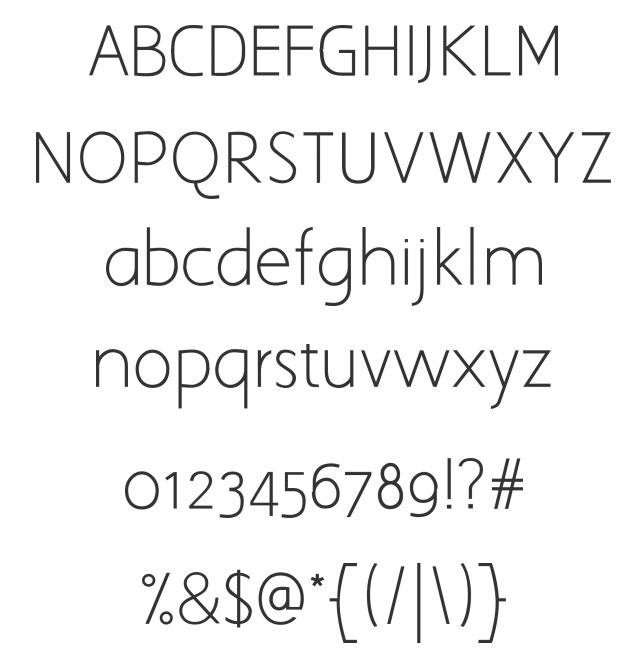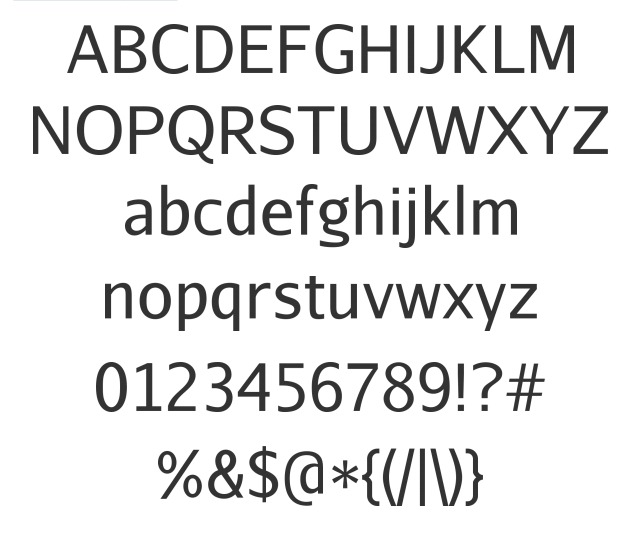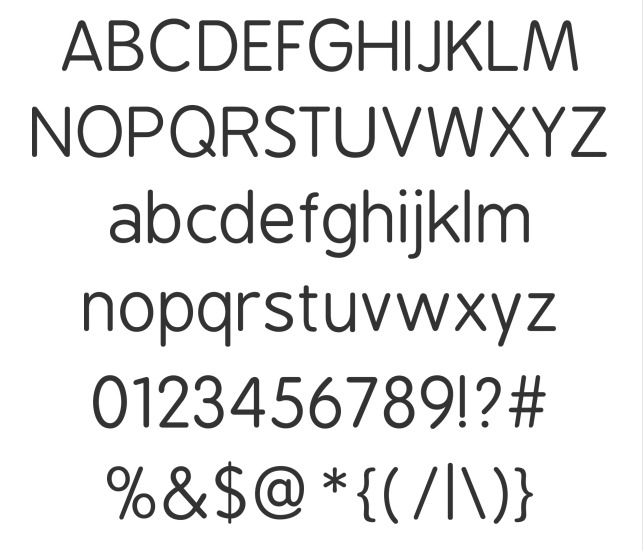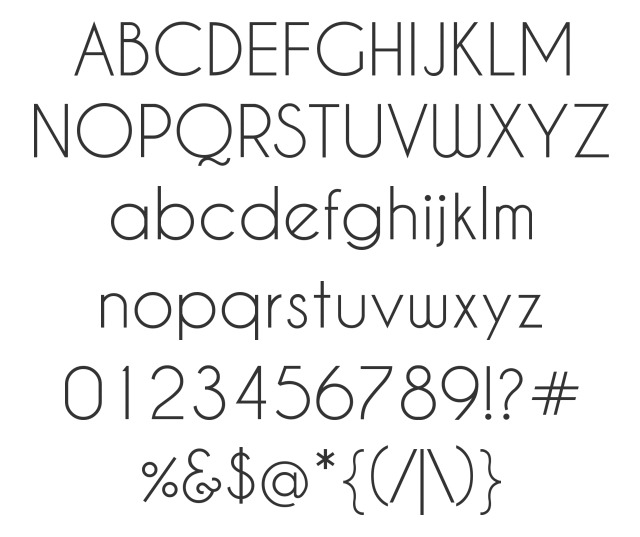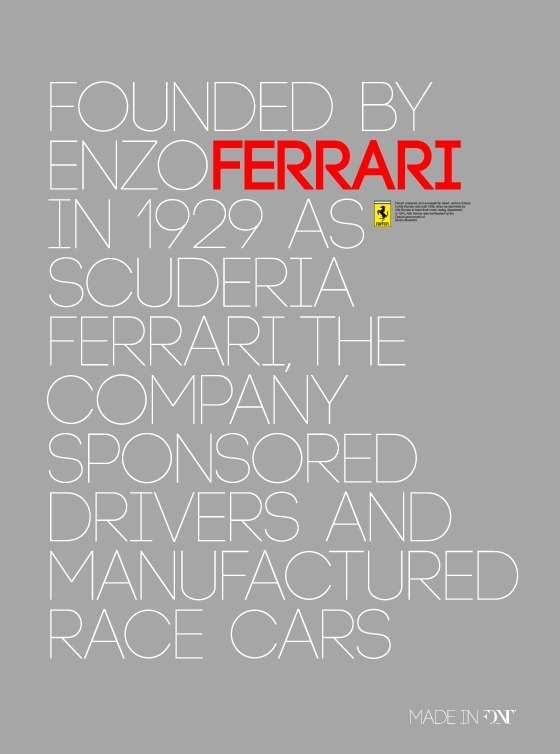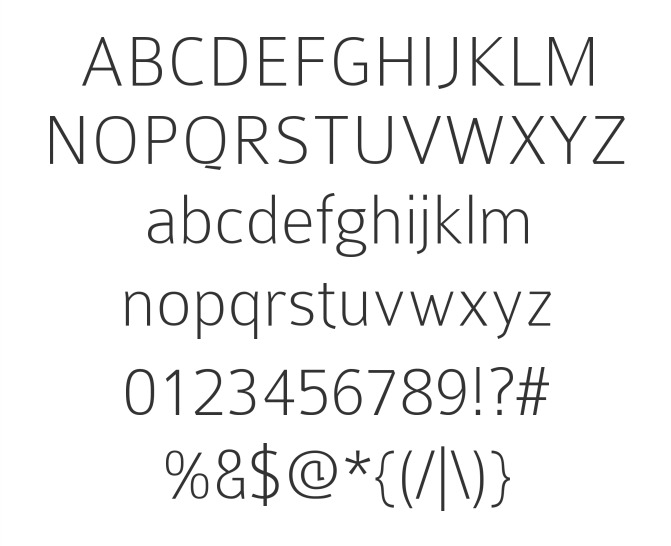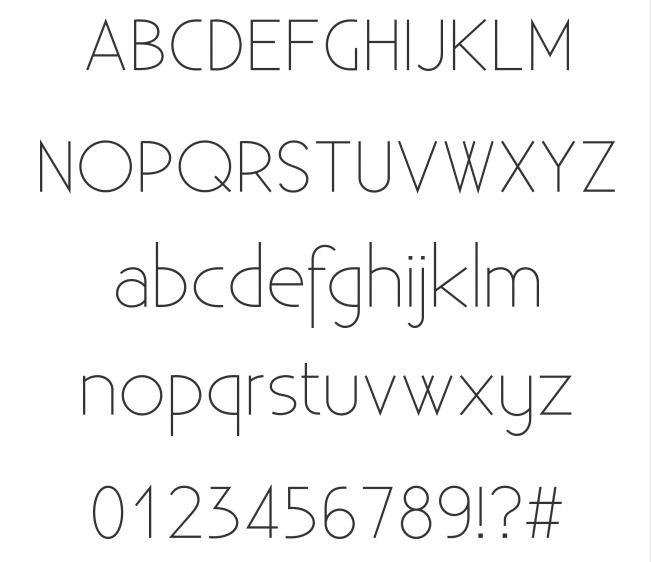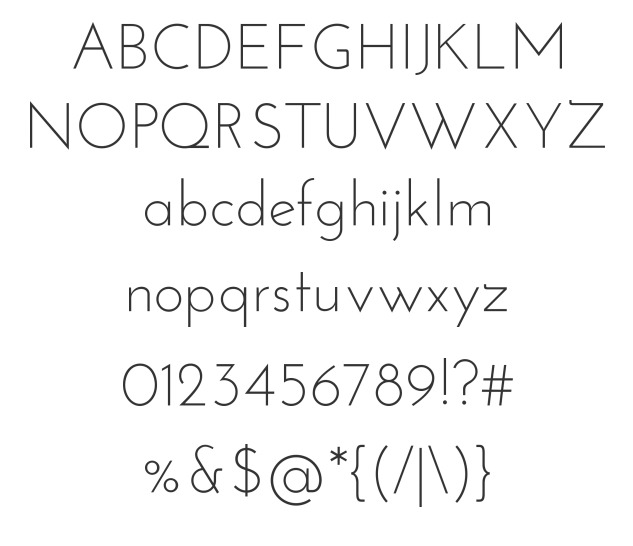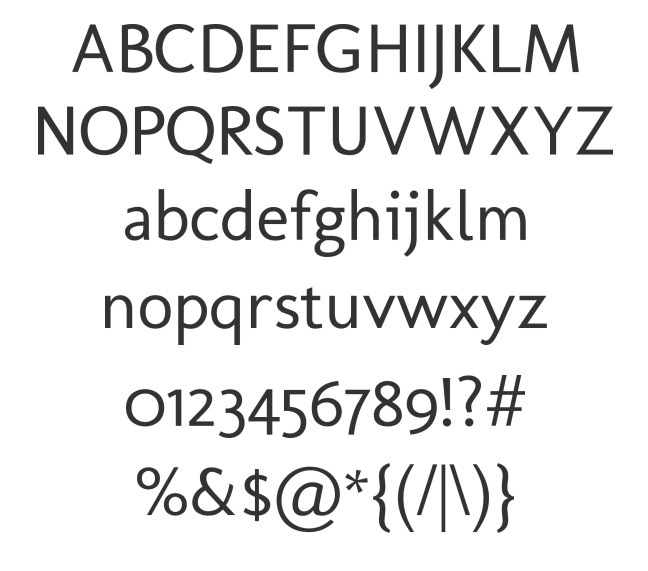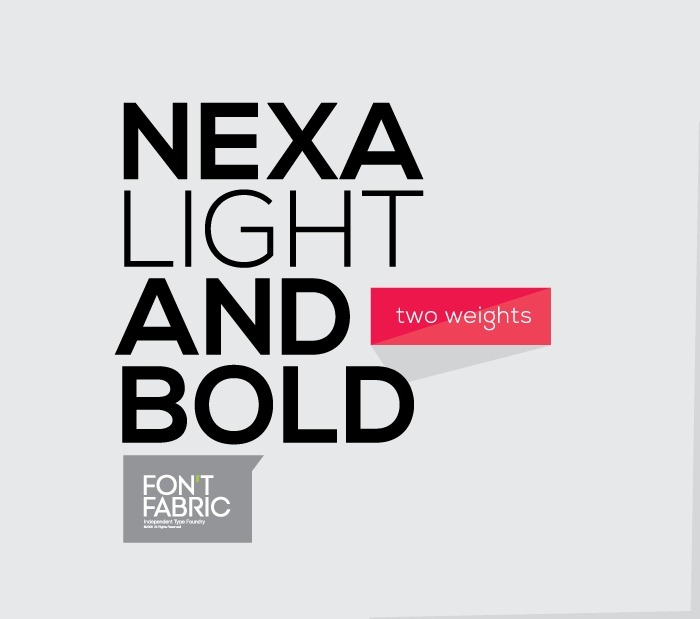
Taking a minimalist approach for your website or a graphic project requires that you use fonts that match the simple and uncluttered setup of your design. Clean and light fonts can profoundly complement your minimalist design as they appear laid back and subdued. Their somewhat subtle appearance would give you a breathing space to admire and focus on the main contents of your work instead of drawing attention into themselves.
The fonts for minimalist designs allow the contents of your work to stand out and become the center of attention. They are frugally embellished, consisting only of thin lines, and in most cases they totally discard the serif and the finishing strokes at the end of a character. Although minimal fonts look uncluttered, it does not mean that they look unattractive. On the contrary, a lot of these fonts are refreshing to look at with their mild and neat appearance. They don’t have the non-conforming attitude of graffiti fonts, nor the intimate feel of fonts with handwritten appearance. They are neutral and professional, but not too businesslike. Check out this collection of fonts that we are sharing with you. I hope you will find a perfect font for your design needs and that you will share with us your thoughts. Enjoy!
Gnuolane – MORE INFO
Raleway – MORE INFO
Code Free Font – MORE INFO
Sertig – MORE INFO
Ostrich Sans – MORE INFO
Junction – MORE INFO
Dekar Free Font – MORE INFO
Cicle – MORE INFO
Lane – MORE INFO
PT Sans – MORE INFO
Nexa – MORE INFO
Quciksand – MORE INFO
Cantarell – MORE INFO
Caviar Dreams – MORE INFO
Sreda – MORE INFO
Walkway – MORE INFO
Colaborate – MORE INFO
Comfortaa – MORE INFO
Titillium Text – MORE INFO
Liberation Sans – MORE INFO
Molengo – MORE INFO
Aaargh – MORE INFO
BonvenoCF – MORE INFO
St Marie – MORE INFO
Mentone – MORE INFO
Sansation – MORE INFO
Aurulent Font – MORE INFO
Code Pro – MORE INFO
Existence Light – MORE INFO
Caviar Dreams – MORE INFO
Novecento wide – MORE INFO
Diner – MORE INFO
DISCO – MORE INFO
BPreplay – MORE INFO
TeX Gyre Adventor – MORE INFO
Sofia Pro – MORE INFO
Bigmouth Font – MORE INFO
Ashbury – MORE INFO
Afta Sans – MORE INFO
Hattori Hanzo – MORE INFO
Amble – MORE INFO
Code Free Font – MORE INFO
Bitstream Vera Sans – MORE INFO
Josefin Sans Std – MORE INFO
MatchBook Font – MORE INFO